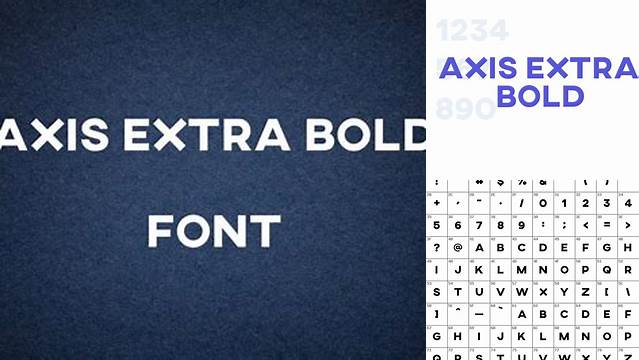
Are you looking to enhance your design projects with a bold and impactful font? Look no further! In this article, we will explore the world of Axis Extra Bold font, providing you with everything you need to know about this typeface and how to download it for free. We'll cover its history, design characteristics, best uses, and where to find it without spending a dime. So, let's dive in and discover how Axis Extra Bold can elevate your creative endeavors.
What is Axis Extra Bold Font?
Axis Extra Bold is a contemporary sans-serif typeface known for its strong, assertive presence. Its clean lines and robust letterforms make it a popular choice for headlines, posters, branding, and other applications where you need to make a statement. This font is designed with a geometric structure, giving it a modern and tech-savvy feel. The extra bold weight adds to its impact, ensuring that your message stands out. Axis Extra Bold is highly legible and versatile, suitable for both print and digital media. Its clarity and simplicity make it an excellent choice for a variety of design contexts, from corporate communications to creative projects. Designers often choose Axis Extra Bold for its ability to convey confidence and strength, making it ideal for brands that want to project a bold and modern image. The fontâs uniform strokes and balanced proportions contribute to its overall aesthetic appeal, ensuring that it looks professional and polished in any application. Whether you're designing a website, creating marketing materials, or working on a logo, Axis Extra Bold can provide the visual impact you need to capture attention and communicate your message effectively. Furthermore, its availability in various weights and styles allows for flexibility in design, enabling you to create a cohesive and visually appealing brand identity. With its combination of strength, clarity, and modern design, Axis Extra Bold is a valuable addition to any designer's toolkit.
History and Design
Understanding the history and design of Axis Extra Bold can give you a greater appreciation for its unique qualities. While the exact origins of Axis Extra Bold can sometimes be murky due to font licensing and distribution, it typically emerges as a derivative or a custom modification of other well-established sans-serif fonts. Designers often create bolder versions of existing fonts to cater to specific needs, resulting in variations like Axis Extra Bold. The design itself is characterized by its geometric sans-serif structure, featuring clean lines, uniform strokes, and a distinct lack of decorative elements. This minimalist approach gives the font a modern and timeless appeal, making it suitable for a wide range of applications. The extra bold weight is a crucial aspect of its design, adding significant visual impact and ensuring that the text stands out, even in crowded or visually complex layouts. The font's legibility is also a key consideration, with carefully designed letterforms that maintain clarity and readability across different sizes and resolutions. This attention to detail makes Axis Extra Bold a reliable choice for both print and digital media. Its design aligns with contemporary trends in typography, emphasizing simplicity, functionality, and visual impact. Designers often choose Axis Extra Bold for its ability to convey a sense of strength and confidence, making it ideal for branding, advertising, and other high-impact applications. The fontâs geometric structure and bold weight create a strong visual presence, helping to capture attention and communicate messages effectively. In summary, the history and design of Axis Extra Bold reflect a commitment to modern aesthetics, functionality, and impactful communication.
Best Uses for Axis Extra Bold
Knowing the best applications for Axis Extra Bold can help you maximize its impact in your design projects. This font excels in scenarios where you need to make a strong visual statement. Headlines and titles are prime examples, as the extra bold weight immediately grabs attention and sets the tone for the content. Its clarity and legibility ensure that your message is easily readable, even at large sizes. Posters and banners also benefit from Axis Extra Bold, where its bold presence can effectively communicate key information and attract viewers from a distance. In the realm of branding, Axis Extra Bold can be used to create a confident and modern identity. Logos, business cards, and marketing materials can all leverage the font's strength to convey a sense of reliability and professionalism. Websites can also benefit from Axis Extra Bold, particularly in headers, navigation menus, and calls to action. Its clean lines and geometric structure provide a contemporary look that aligns well with modern web design trends. Editorial design is another area where Axis Extra Bold shines. Magazine covers, article titles, and section headings can all utilize the font to create a visually appealing and organized layout. Its versatility extends to packaging design, where it can be used to highlight product names and key features. Overall, Axis Extra Bold is best suited for applications that require a bold, modern, and impactful typeface. Its strength and clarity make it an excellent choice for a wide range of design projects, from print to digital.
Tips for Using Bold Fonts Effectively
Using bold fonts effectively can significantly enhance your design projects. The key is to strike a balance between making a statement and maintaining readability. Overusing bold fonts can create a cluttered and overwhelming look, while underusing them can diminish their impact. One of the most important tips is to use bold fonts sparingly. Reserve them for headlines, titles, and key words that you want to emphasize. Avoid using bold fonts for large blocks of text, as this can strain the reader's eyes and make the content difficult to digest. Consider the contrast between the bold font and the surrounding text. A strong contrast will make the bold text stand out, while a weak contrast may make it blend in. Experiment with different font weights and sizes to find the right balance. Pay attention to the overall hierarchy of your design. Use bold fonts to create a clear visual hierarchy, guiding the reader's eye to the most important elements on the page. Ensure that the bold font complements the other fonts in your design. Choose fonts that have similar styles and proportions to create a cohesive and harmonious look. Test your design on different devices and screen sizes to ensure that the bold font remains legible and impactful. Consider the context of your design. Use bold fonts in a way that aligns with the overall message and tone of your project. By following these tips, you can use bold fonts effectively to create visually appealing and impactful designs.
Font Pairing Suggestions
Choosing the right font pairing can elevate your design from good to great. When using a bold font like Axis Extra Bold (or a similar alternative), it's essential to select a complementary font that balances its strong presence. One classic approach is to pair a bold sans-serif with a lighter weight sans-serif. For example, you could pair Axis Extra Bold with a font like Open Sans Light or Roboto Light. This creates a clear visual hierarchy, with the bold font drawing attention to headlines and the lighter font providing a readable body text. Another effective pairing is to combine a bold sans-serif with a serif font. This can add a touch of elegance and sophistication to your design. Consider pairing Axis Extra Bold with a serif font like Merriweather or Playfair Display. These fonts have a classic and timeless appeal that can complement the modern look of a bold sans-serif. When pairing fonts, pay attention to their x-heights and proportions. Choose fonts that have similar x-heights to ensure that they look harmonious together. Also, consider the overall tone of your design. If you're aiming for a modern and minimalist look, stick to sans-serif pairings. If you want to add a touch of tradition or elegance, opt for a serif pairing. Experiment with different font combinations until you find a pairing that works well for your project. Use online font pairing tools and resources to get inspiration and guidance. By carefully selecting your font pairings, you can create visually appealing and effective designs that communicate your message clearly and professionally.
Axis Extra Bold is a powerful and versatile font that can add impact to your design projects. While finding a direct, free download may be challenging, exploring reputable font websites and open-source alternatives can provide you with similar options. Remember to use bold fonts effectively, choose complementary font pairings, and always consider licensing requirements. By following these guidelines, you can enhance your designs and create visually appealing and professional projects. Happy designing, guys!